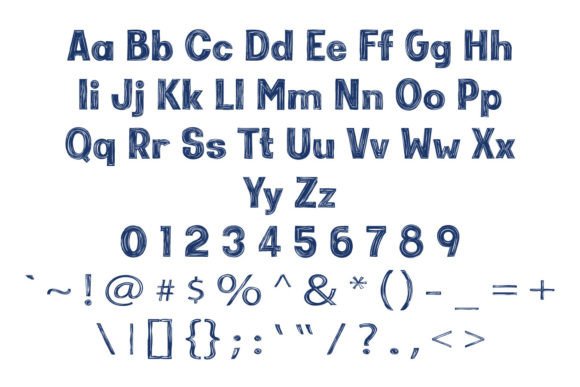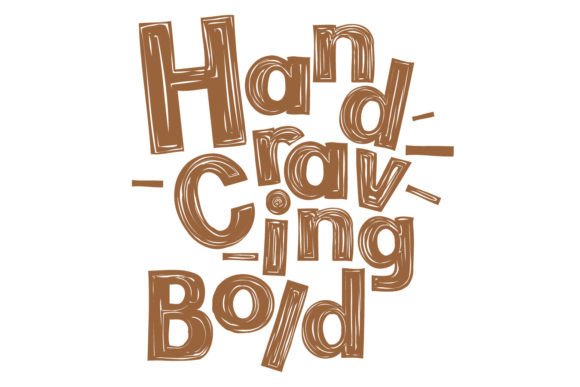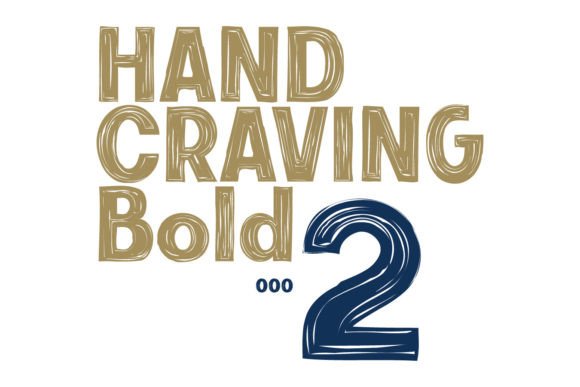
Unleash Your Creativity with Hand Craving Bold Font
Are you tired of using the same old fonts in your designs? Do you want to add a touch of uniqueness and creativity to your projects? Look no further than the Hand Craving Bold Font. This striking handwritten sans-serif decorative font is sure to make a strong statement with every character.
What is Hand Craving Bold Font?
Hand Craving Bold is a bold and distinctive font that adds a unique touch to your designs. Its handwritten sans-serif style gives it a personal and creative feel, making it perfect for designers and crafters who want to add a touch of personality to their work.
Key Features of Hand Craving Bold Font
- Bold and Distinctive Strokes: The Hand Craving Bold Font features bold and distinctive strokes that make it stand out from other fonts.
- Handwritten Sans-Serif Style: The font’s handwritten sans-serif style gives it a personal and creative feel.
- Perfect for Creative Projects: The Hand Craving Bold Font is perfect for designers and crafters who want to add a touch of creativity and emphasis to their projects.
Uses of Hand Craving Bold Font
The Hand Craving Bold Font can be used in a variety of creative projects, including:
- Graphic Design: Use the Hand Craving Bold Font to add a touch of creativity and emphasis to your graphic designs.
- Crafting: The font is perfect for crafters who want to add a personal touch to their handmade projects.
- Digital Art: Use the Hand Craving Bold Font to add a unique touch to your digital art projects.
- Branding: The font can be used to create bold and eye-catching brand logos and signage.
Benefits of Using Hand Craving Bold Font
There are several benefits to using the Hand Craving Bold Font in your designs, including:
- Unique and Creative: The font’s bold and distinctive strokes make it a unique and creative addition to your designs.
- Easily Readable: Despite its bold style, the Hand Craving Bold Font is easily readable, making it perfect for use in a variety of projects.
- Versatile: The font can be used in a variety of creative projects, from graphic design to crafting.
Tips for Using Hand Craving Bold Font
Here are a few tips for using the Hand Craving Bold Font in your designs:
- Use it Sparingly: Because of its bold style, it’s best to use the Hand Craving Bold Font sparingly to avoid overwhelming your design.
- Pair it with Other Fonts: The font pairs well with other fonts, so don’t be afraid to experiment with different combinations.
- Experiment with Colors: The Hand Craving Bold Font looks great in a variety of colors, so don’t be afraid to experiment and find the perfect color for your design.
| Font Name | Hand Craving Bold Font |
| Author | DuniWaDoni |
The Hand Craving Bold Font is a unique and creative addition to any design project. Its bold and distinctive strokes make it perfect for designers and crafters who want to add a touch of personality to their work. With its versatility, readability, and ease of use, the Hand Craving Bold Font is sure to become a favorite in your design arsenal.